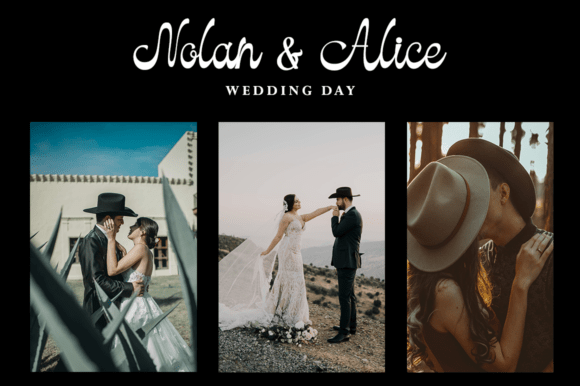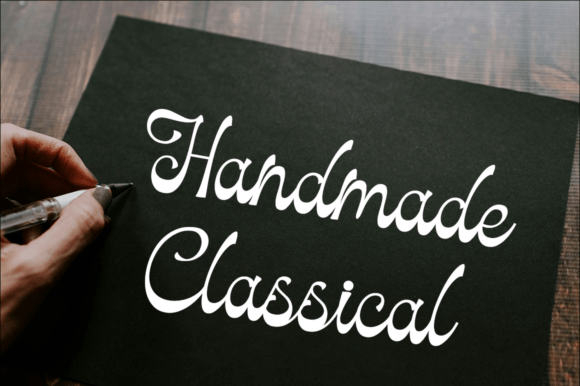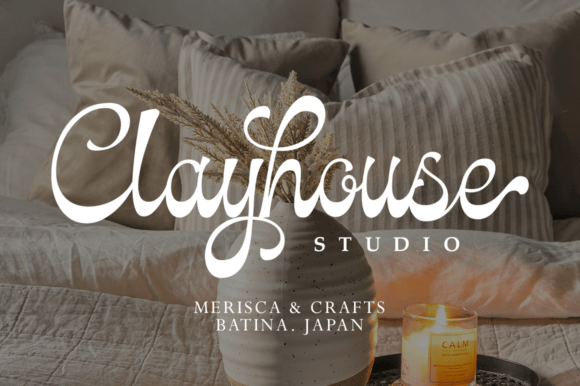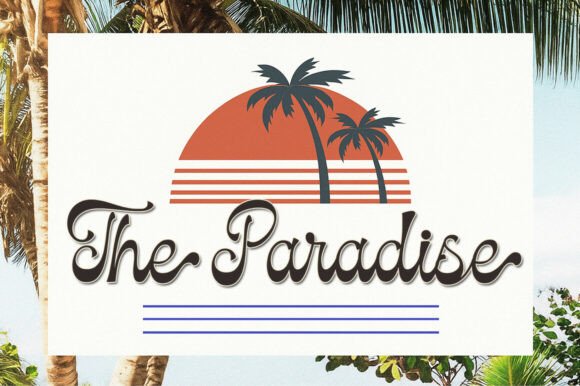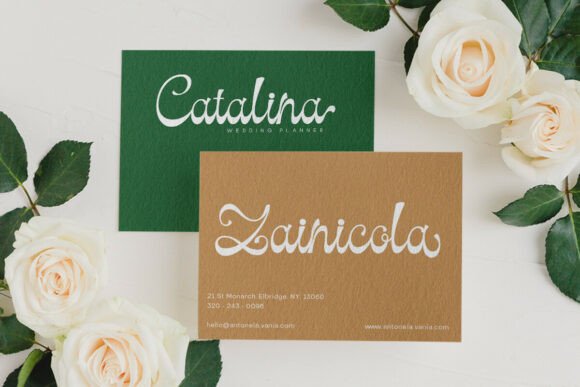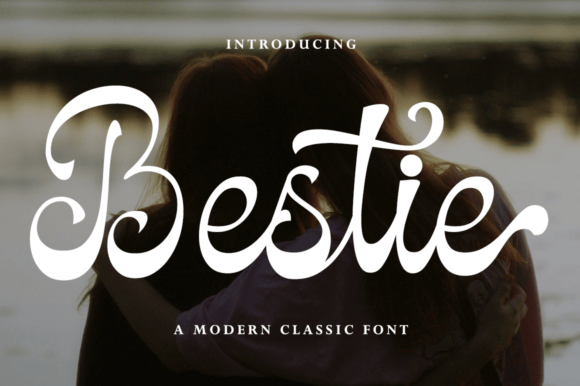
The Perfect Partnership: Where Creativity Meets Timeless Elegance
Have you ever found yourself stuck in a design rut, pouring over endless font options, desperate to find the perfect match for your creative vision? I know I have. But what if I told you that the answer lies in a font that’s as bold as it is sophisticated? Enter the Bestie Font, a harmonious blend of the Wild West’s free spirit and modern flair.
This beautifully crafted font is more than just a pretty face – it’s a versatile tool designed to elevate your creative projects from the ordinary to the extraordinary. Whether you’re crafting a logo, designing a vintage-inspired invitation, or working on a branding project, the Bestie Font is sure to be your new best friend. Its smooth curves and artistic details make it a valuable addition to any designer’s toolkit, guaranteeing to bring a touch of confidence and strong character to any design.
Bestie Font Key Features
- Unique Characteristics: Bestie Font features a modern and playful design, with unique letterforms and a friendly tone, making it perfect for creative projects.
Bestie Font Review
Overall, I was quite excited to dive into the Bestie Font and see what it had to offer. As a designer, I appreciate fonts that bring a unique twist to the table, and Bestie Font does just that.
• The Bestie Font has a playful, handwritten feel that immediately grabs your attention. It’s perfect for creating a lighthearted and approachable tone in your designs.
• The font is highly customizable, making it a great choice for designers who like to experiment with different styles and looks.
• The character set is extensive, with a wide range of punctuation marks and special characters to choose from.
However, as much as I loved Bestie Font, there are a few limitations to keep in mind: ⚠️
• The font can be a bit too ornate at times, making it difficult to read in certain contexts. This may not be ideal for long blocks of text or complex layouts.
• The font is not as versatile as some other options on the market, and may not be suitable for more formal or professional designs.
Overall, I’d say that Bestie Font is a solid choice for designers who are looking for a fun and playful font to add some personality to their work. Just be mindful of its limitations and use it wisely!
Tips for Getting the Most Out of Bestie Font
Here are some tips for getting the most out of Bestie Font:
- Use Bestie Font for titles and headings to add a touch of whimsy and personality.
- Pair Bestie Font with other playful fonts or graphics for a cohesive look.
Bestie Font is perfect for:
- Creating invitations and party graphics.
- Designing social media graphics and ads.
- Adding a touch of personality to business branding and marketing materials.